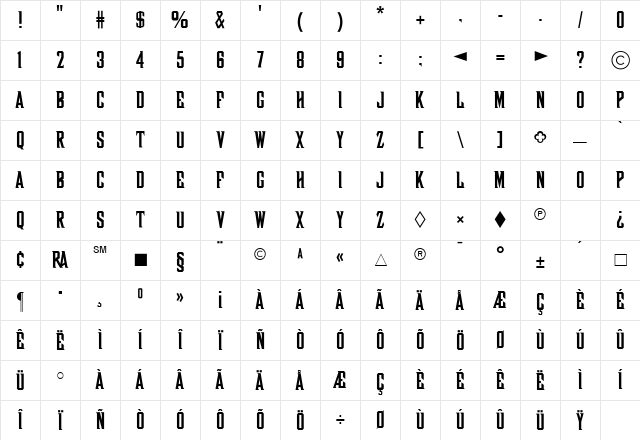
CgWoodBlock echoes the hand-painted signage and woodblock typography of the American frontier, with a warm, rugged personality.
Font Pairing: Combine CgWoodBlock with a simple slab or neutral sans - period-accurate companions reinforce the vintage feel without competing for attention.
Pro Tip: Use CgWoodBlock for short, impactful bursts of text - it shines in poster headlines and product names rather than extended copy.